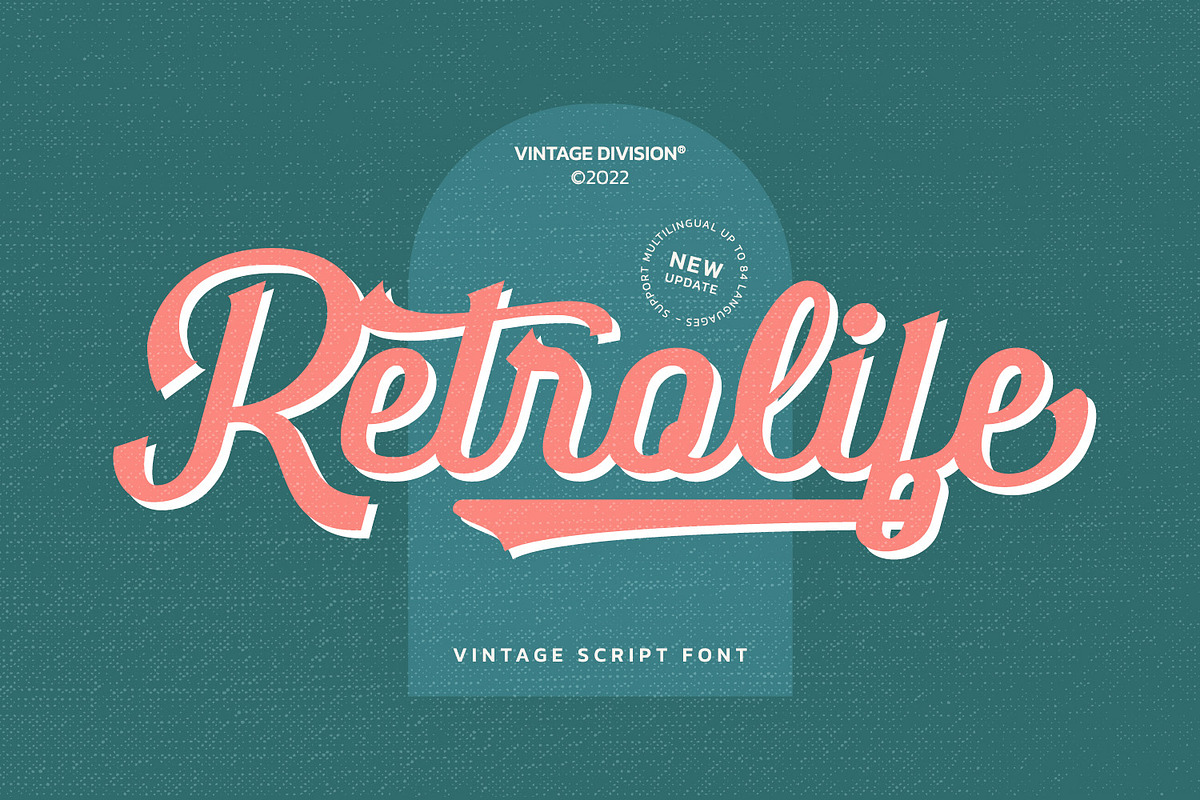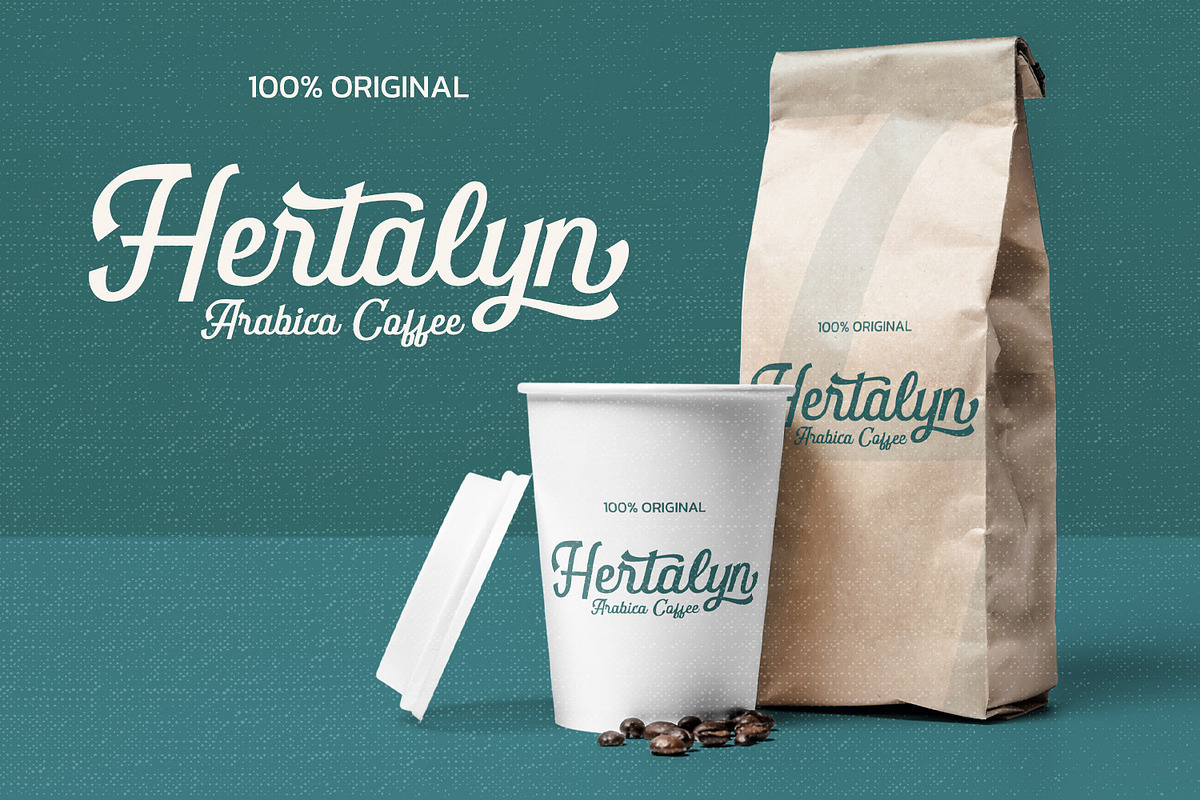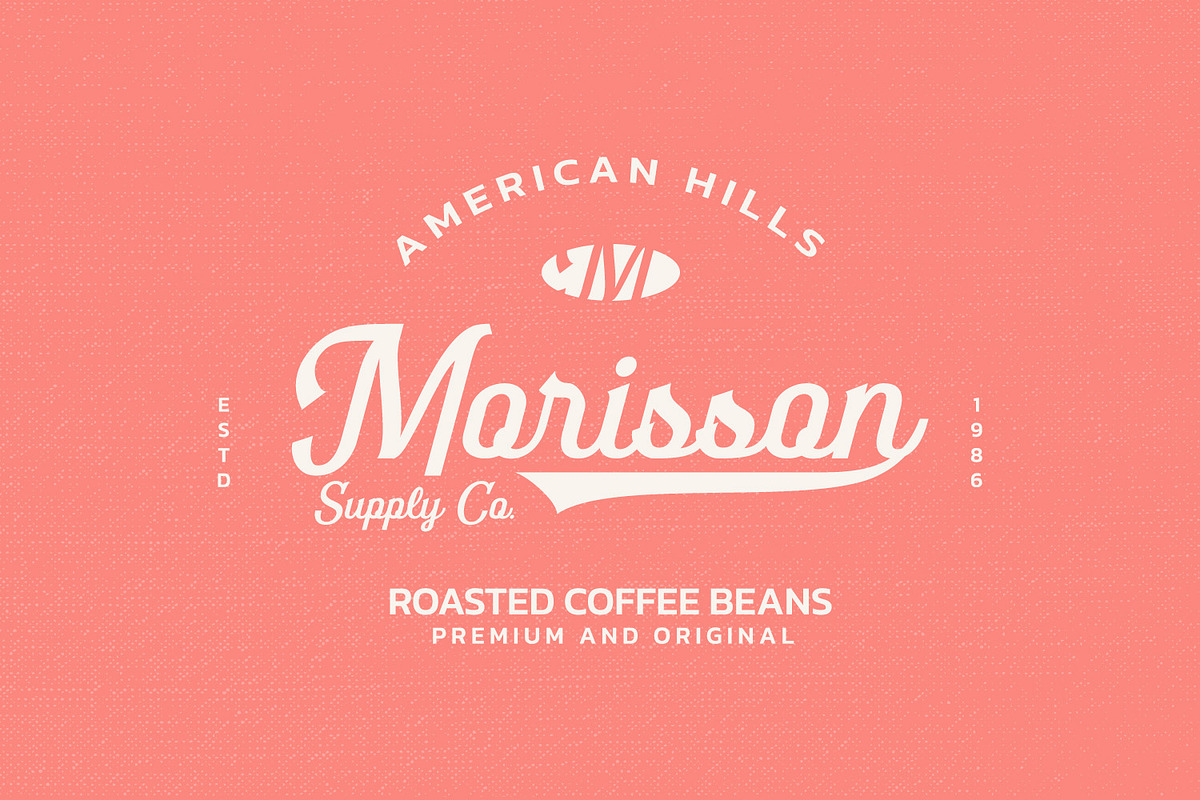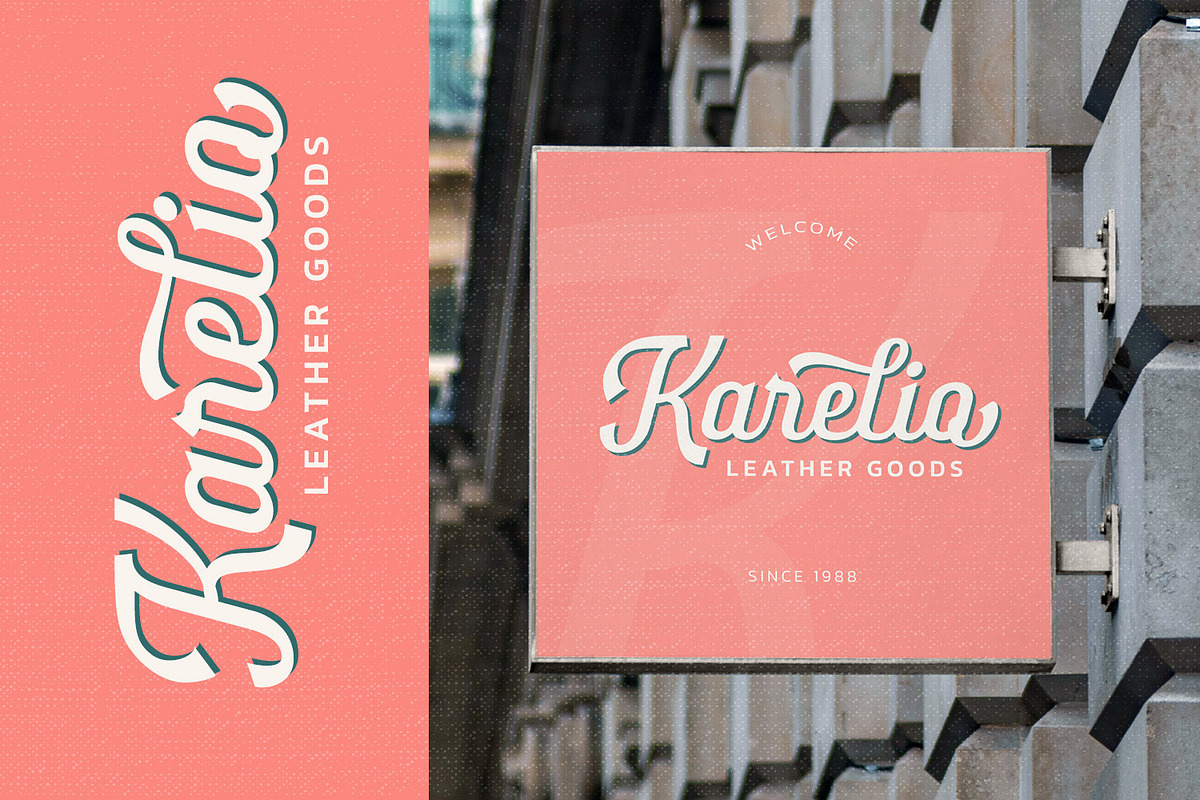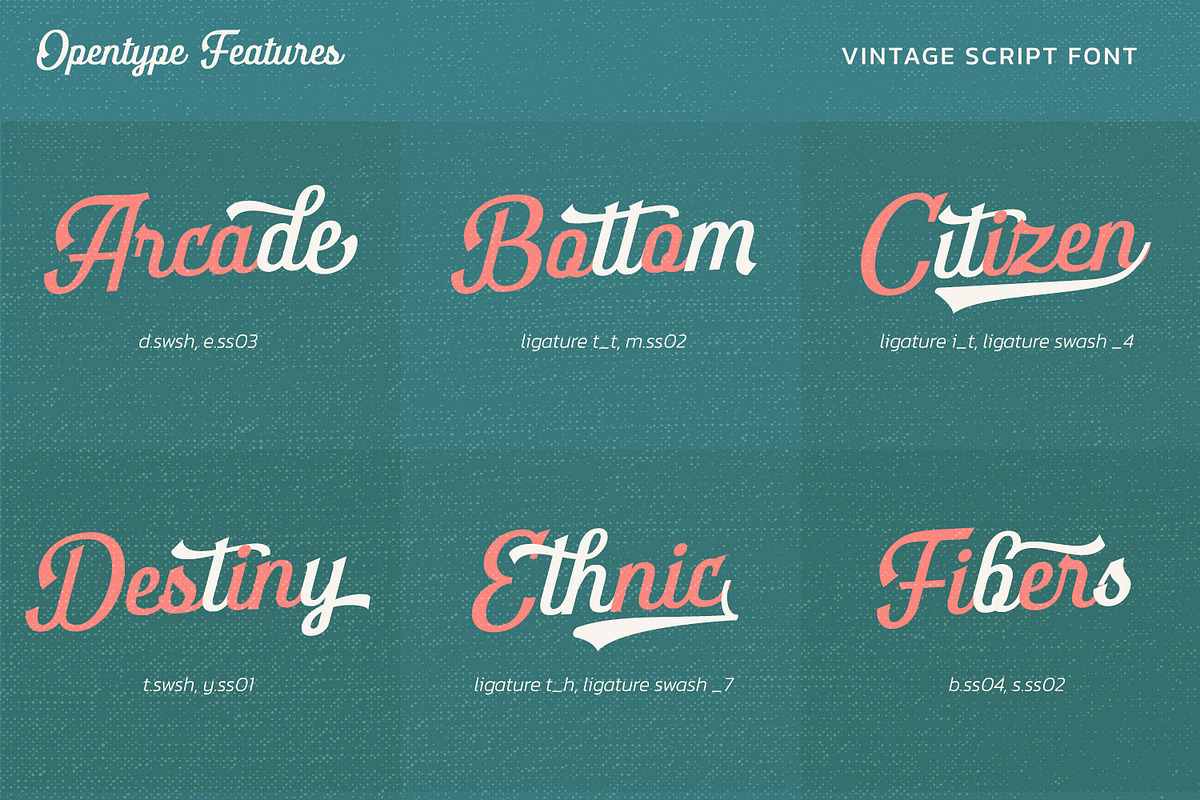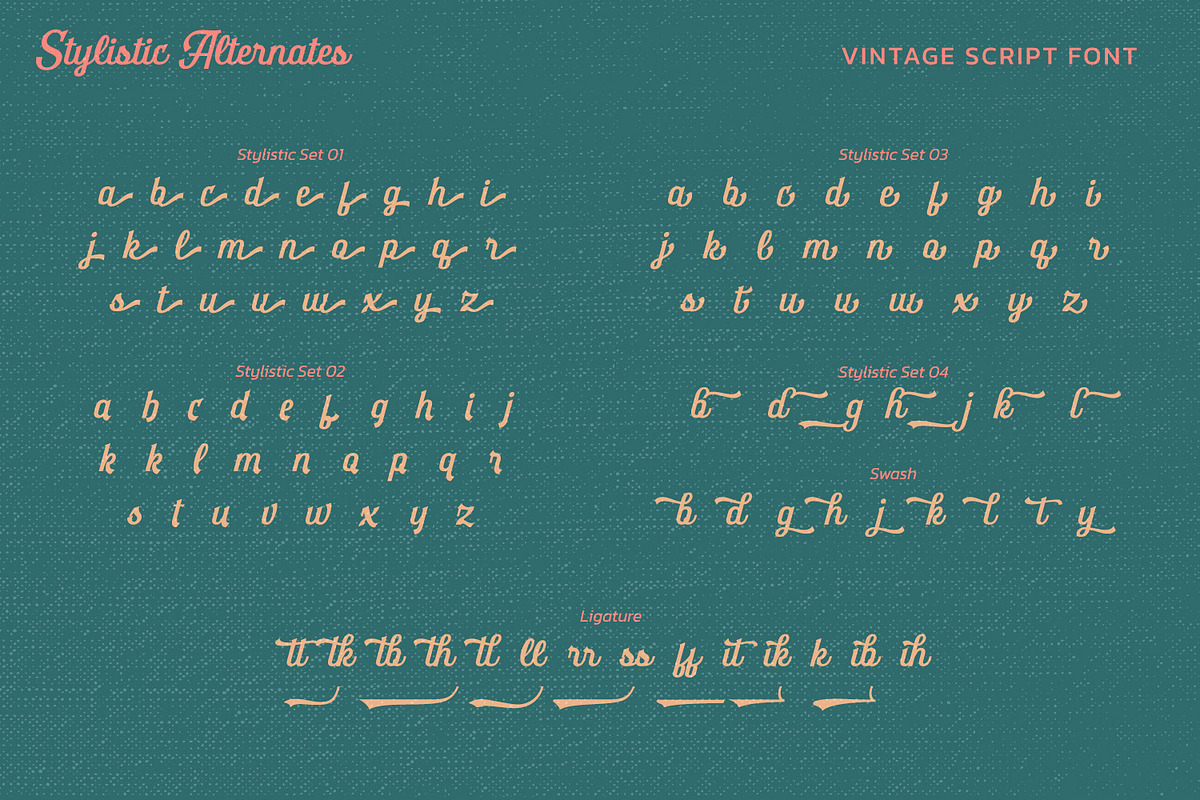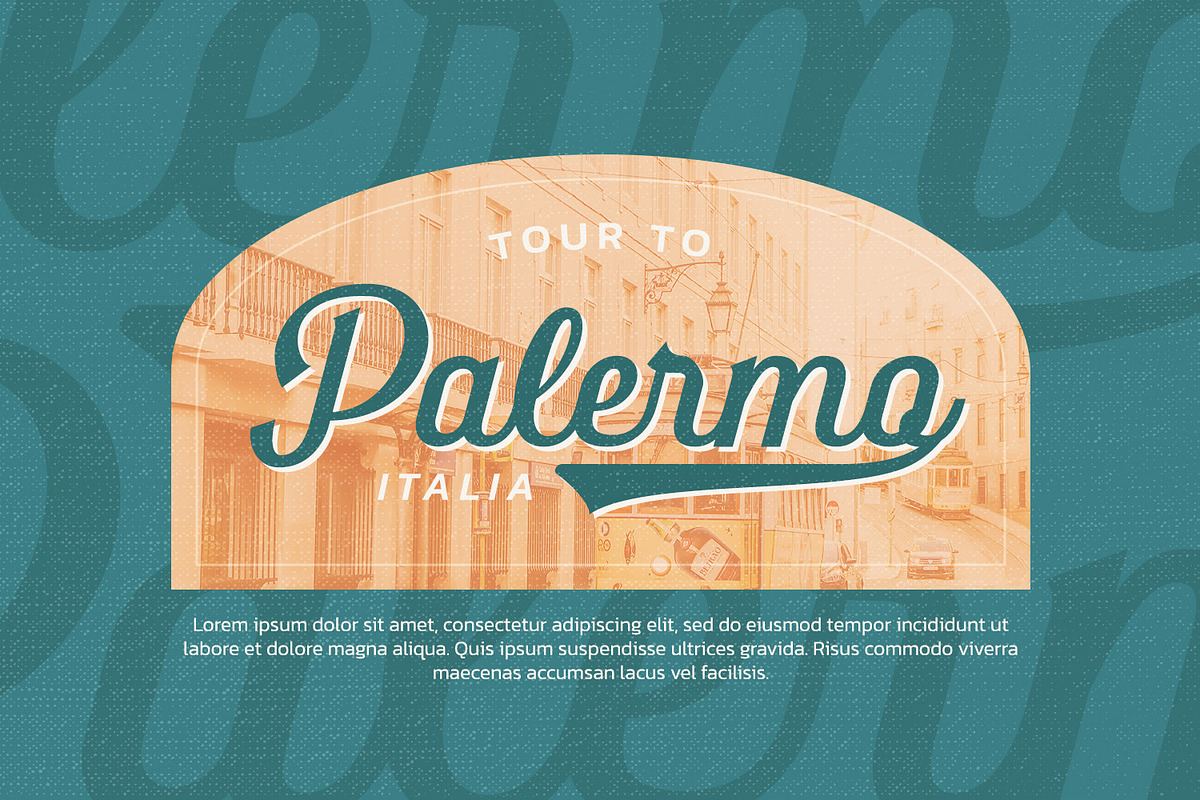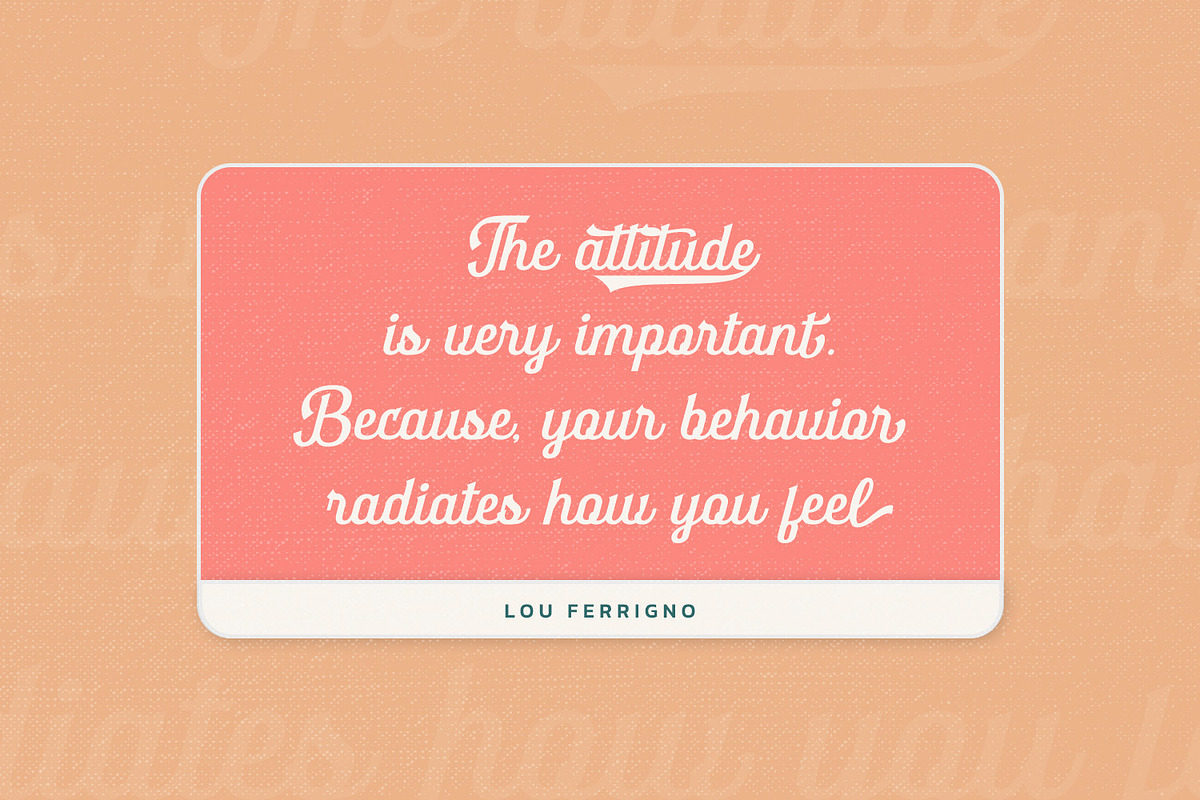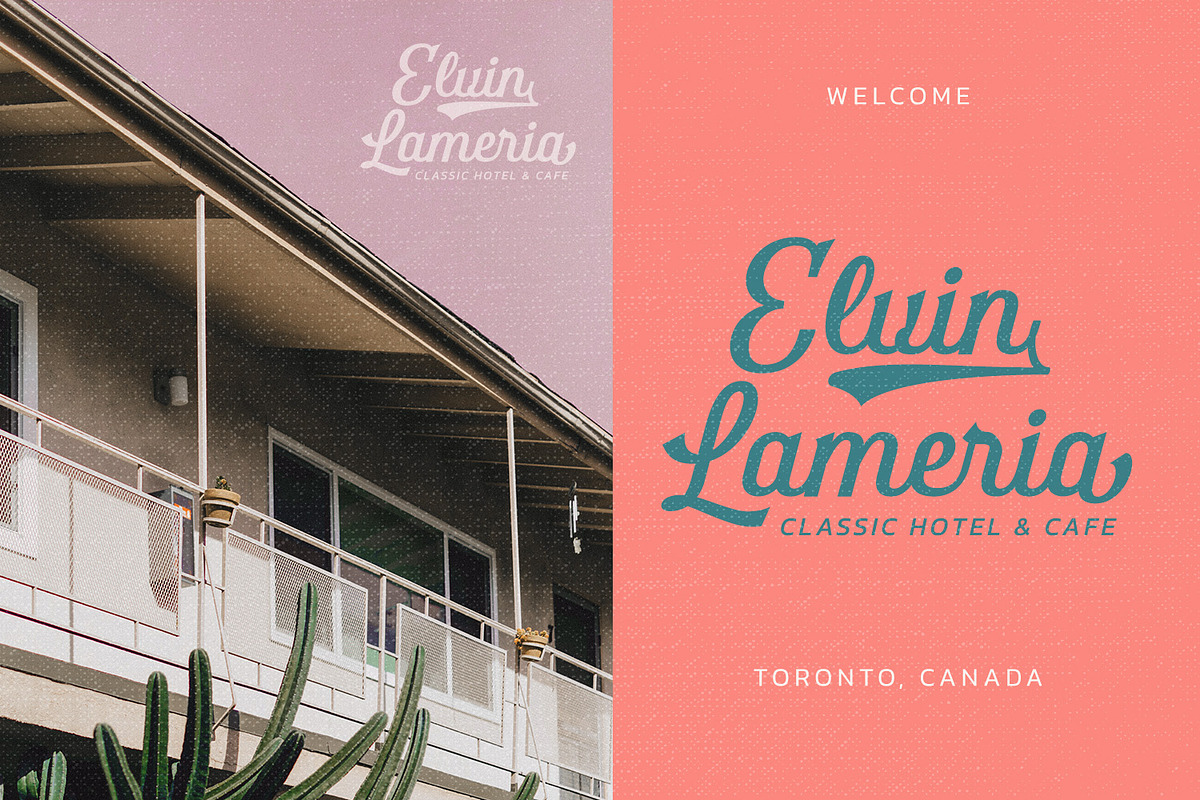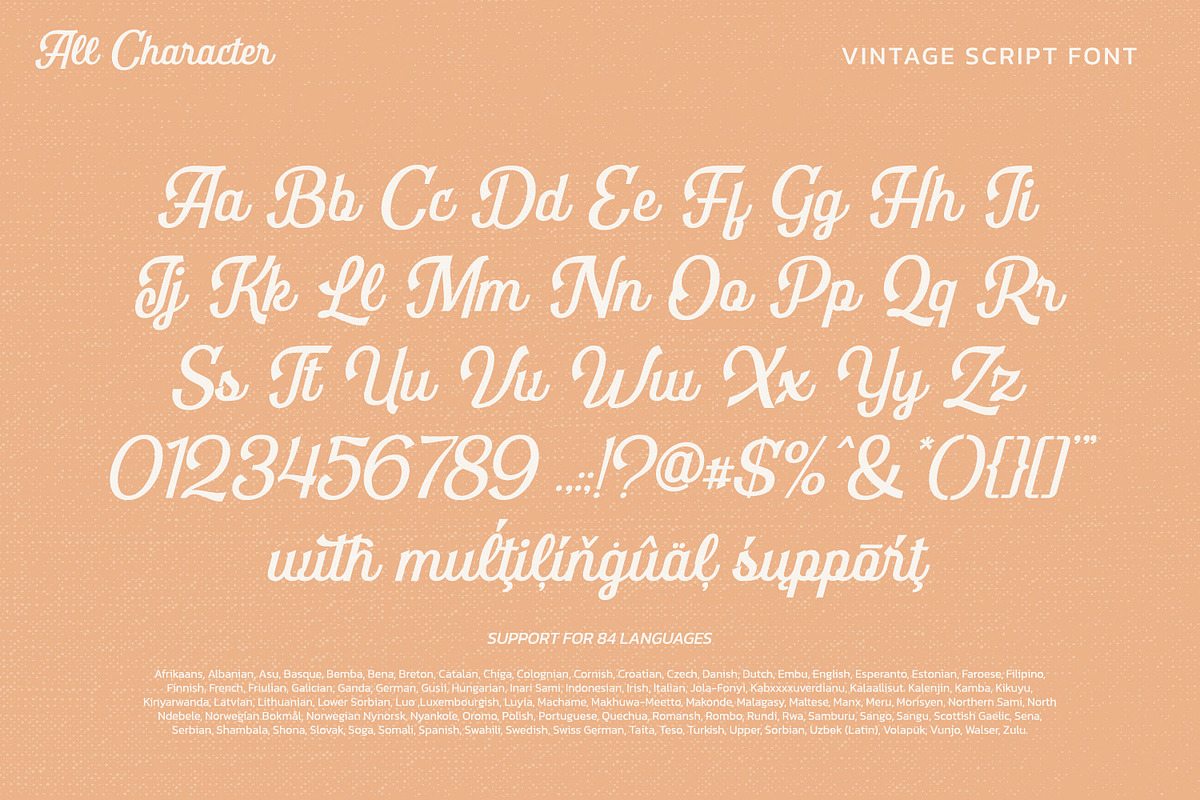
Retrolife
Looking for a font that will make your branding stand out? Do you sometimes have an appetite for a bit more wholesome typography? Looking for a fabulous, stylish, and adventure font? We've got what you want.
Retrolife- A Script Font
Retrolife is a interesting blend of retro and a bit of modern style script font. This font is very easy to read, because there are many fancy letter joints. Perfect to be applied in various formal forms such as invitations, labels, restaurant menus, logos, fashion, make up, stationery, novels, magazines, books, greeting / wedding cards, packaging, labels or all kinds of advertising purposes.
Our font always includes Multilingual Support to make your branding reach a global audience.
- Stylistic Set